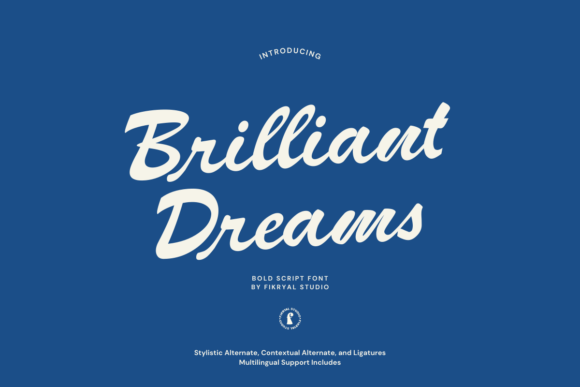
The Dream Font That Elevates Your Designs: A Deep Dive into Brilliant Dreams
Have you ever been in the middle of a design project, and suddenly, it feels like something’s missing? You’re not quite sure what it is, but you know it’s not quite right. I recall a recent experience where I was working on a bold, artistic project, and my design just felt flat. That’s when I stumbled upon Brilliant Dreams Font, a bold script font that completely transformed my design.
With its artistic and courageous touch, Brilliant Dreams instantly elevated my project, infusing it with a much-needed dose of vibrancy and personality. I was impressed by the font’s modern hand-lettering style, which seemed to bring my design to life. In this article, I’ll share my experience with Brilliant Dreams, including what I love about it, some minor quirks, and practical tips on how to make the most of this stunning font.
An Honest Review of Brilliant Dreams Font
What I Love About Brilliant Dreams ✨
- ✅ Unique and Artistic Style: Brilliant Dreams boasts a bold, modern hand-lettering style that’s perfect for designs that require a touch of personality and flair.
- ✅ Highly Versatile: This font can be used for a wide range of projects, from branding and advertising to packaging and digital designs.
- ✅ Easy to Read: Despite its bold and artistic style, Brilliant Dreams remains surprisingly easy to read, making it perfect for headlines, titles, and short paragraphs.
- ✅ OpenType Features: Brilliant Dreams comes with a range of OpenType features, including glyphs, stylistic alternates, and ligatures, which allow for endless creative possibilities.
Some Minor Quirks to Consider 🤔
- ⚠️ Limited Use in Body Text: While Brilliant Dreams is easy to read, its bold style may not be suitable for lengthy body text. It’s best used for headlines, titles, and short paragraphs.
- ⚠️ Kerning Issues on Certain Platforms: Some users have reported kerning issues when using Brilliant Dreams on certain platforms, such as Microsoft Word. However, these issues can usually be resolved by adjusting the font settings or using a different platform.
The Story Behind Brilliant Dreams
Brilliant Dreams was designed by a team of expert typographers who sought to create a font that would inspire creativity and boldness in designers. With its modern hand-lettering style and range of OpenType features, Brilliant Dreams is the perfect tool for designers who want to elevate their designs and make a statement.
| Font Name | Brilliant Dreams Font |
| Author | Fikryal Studio |
Q: What is Brilliant Dreams Font?
A: Brilliant Dreams Font is a bold script font that features a modern hand-lettering style and a range of OpenType features.
Q: What is Brilliant Dreams best used for?
A: Brilliant Dreams is best used for designs that require a bold, artistic style, such as branding, advertising, packaging, and digital designs.
Q: Does Brilliant Dreams support OpenType features?
A: Yes, Brilliant Dreams comes with a range of OpenType features, including glyphs, stylistic alternates, and ligatures.